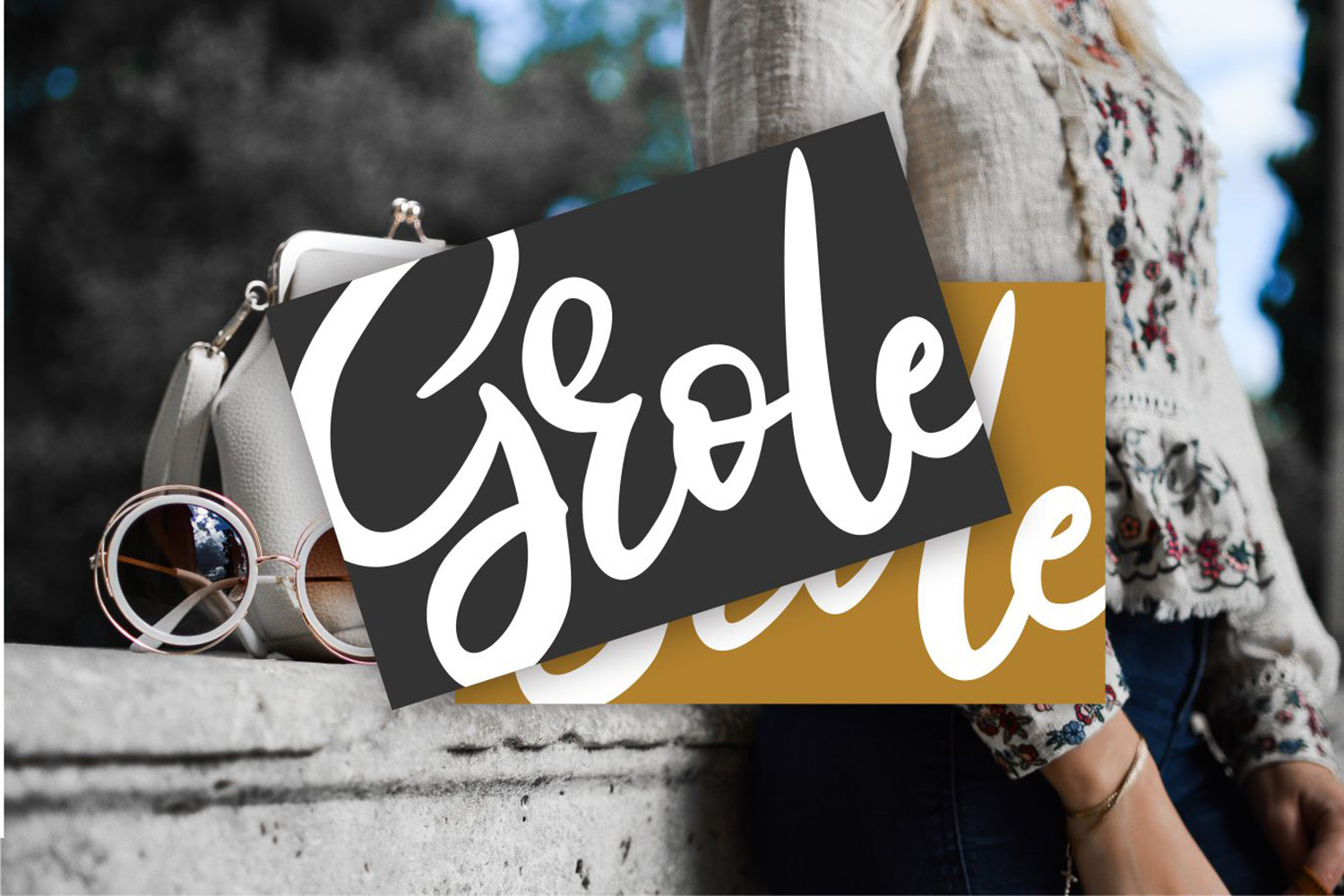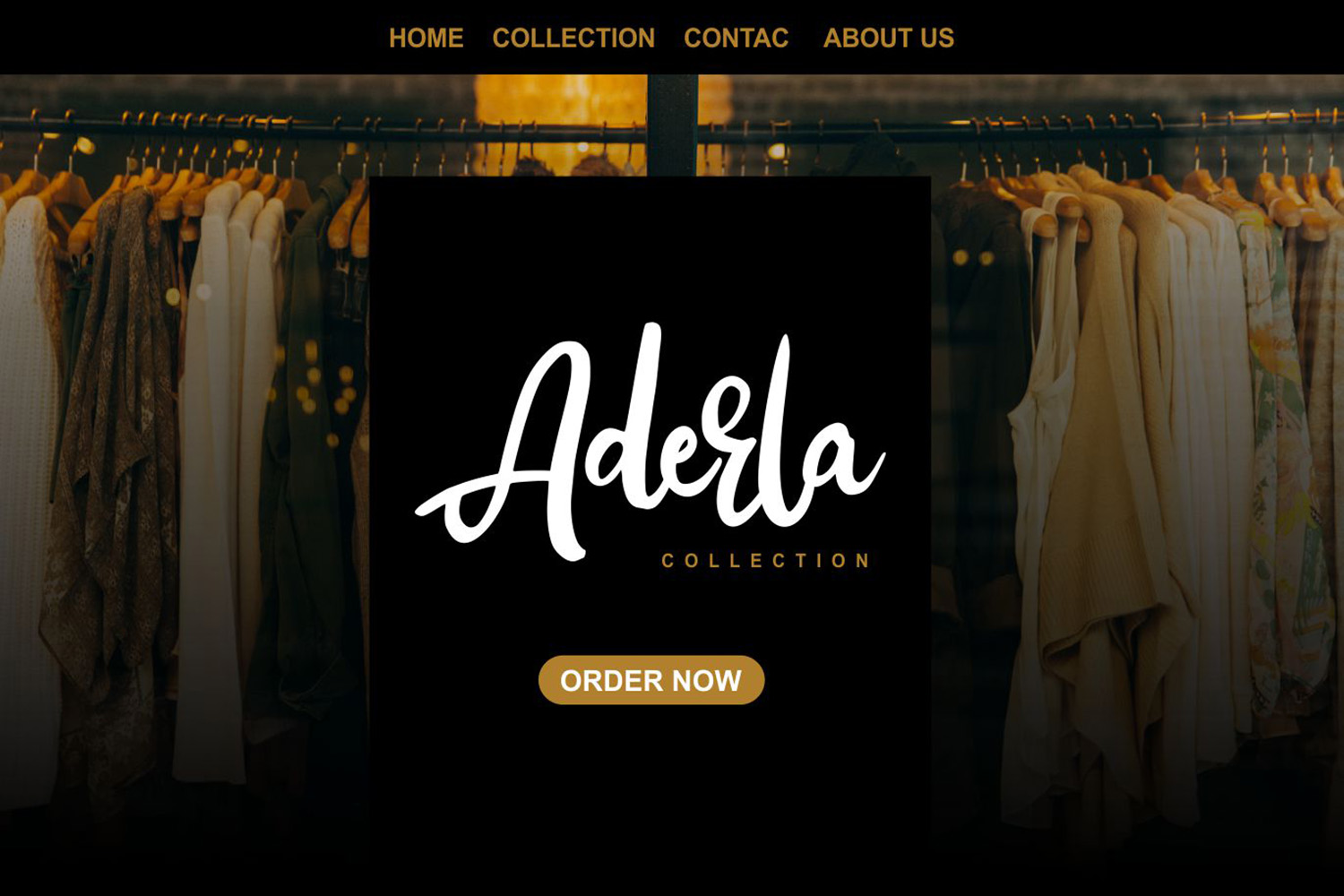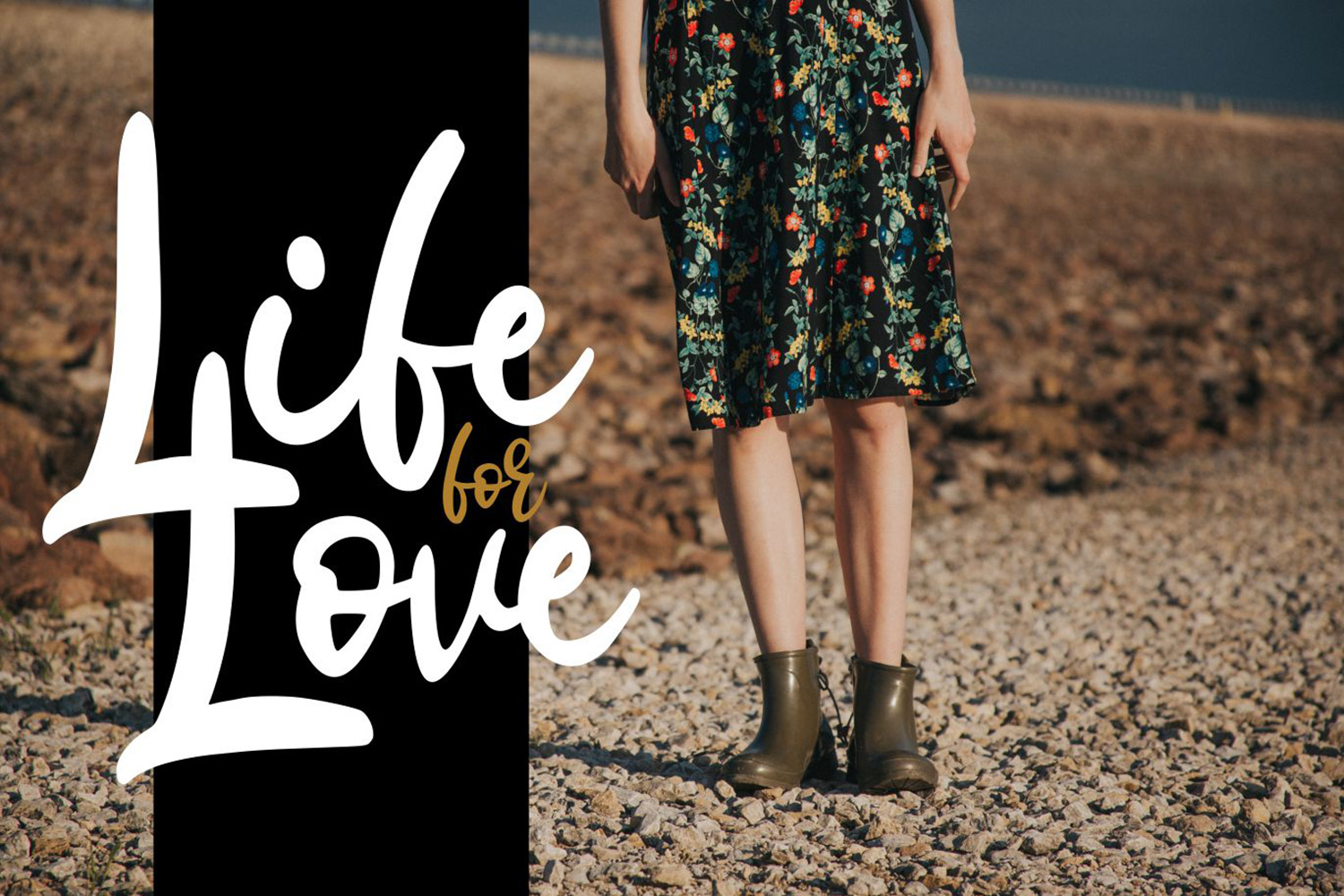
Cestroy Free Font
Explore the graceful flow of Cestroy Free Font, a handwritten font characterized by its elegant touch, making it perfect for your favorite projects. Immerse yourself in its distinct and timeless style, and let it be the key to crafting truly spectacular designs. Fall in love with the unique charm of Cestroy Script as you elevate your creative endeavors to new heights. This free typeface was designed by a talentedΒ Fannan studio. If you like it don’t forget to check out the full version.